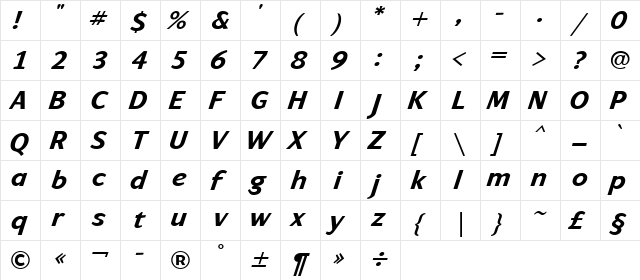
ArtemiusSans TT Bold Italic Font Preview
Design Context for ArtemiusSans TT Typeface
ArtemiusSans TT takes a measured approach to typography — its balanced proportions and neutral character make it a reliable workhorse for both digital and print work. Its italic angle brings a sense of urgency and motion to the letterforms. The heavy weight commands attention and anchors typographic hierarchies.
Pro Tip: Try ArtemiusSans TT for annotation and caption copy alongside an upright companion — the contrast in angle creates a dynamic but ordered typographic system.